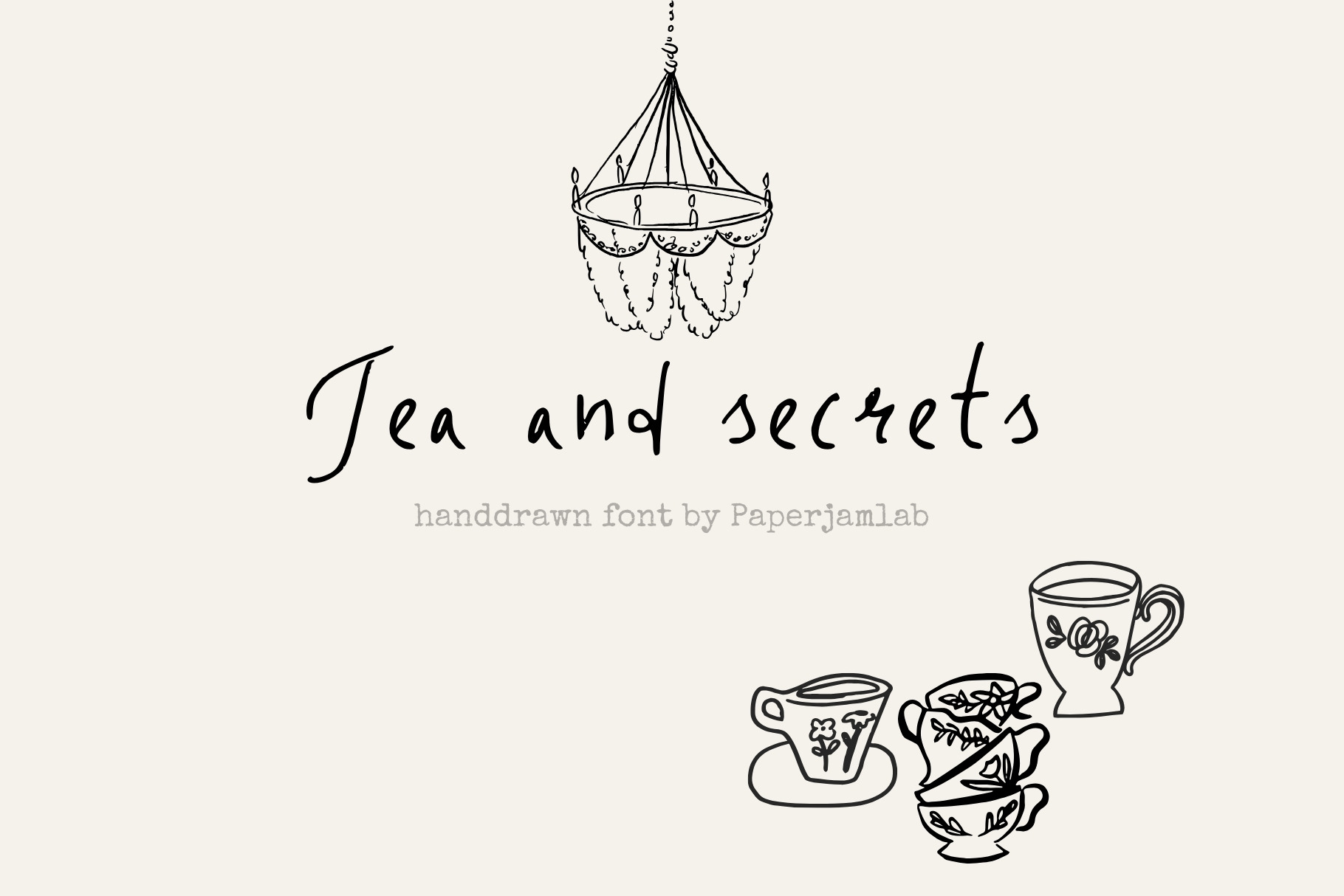
Tea & Secrets. Whimsical Script Font
Tea & Secrets is a delicate, whimsical script font that feels like a whispered truth written on the back of a vintage postcard. With its airy lines, organic flow, and intentional "hand-tremble" effect, it carries the soul of authentic handwriting - imperfect, elegant, and deeply personal.
Inspired by the quiet moments of a rainy afternoon, the scent of Earl Grey, and old letters tucked away in wooden boxes, this font is designed to bring a touch of mystery and "cottagecore" charm to your creative projects.
Wedding Stationery: Invitations, place cards, and "save the date" notes.
Branding & Packaging: Especially for candles, organic skincare, botanical teas, or handmade ceramics.
Social Media: Aesthetic quotes, Pinterest graphics, and "lifestyle" storytelling.
Editorial Design: Delicate headings for poetry books, journals, or magazines.
Personalized Gifts: Greeting cards, tags, and custom prints.
Fine Line Aesthetic: Works beautifully in small sizes for a subtle look or large for a dramatic, airy feel.
Whimsical Character: Unique ascenders and descenders that add a playful yet sophisticated rhythm to your text.
Authentic Texture: Captures the slight ink-on-paper irregularities of a fine-liner pen.
Author's Note:
"Tea & Secrets was created for those who find beauty in the small details. It’s not just a font; it’s a mood. Whether you’re designing a logo for a boutique garden studio or writing a digital letter to a friend, I hope this script adds a layer of magic to your work."